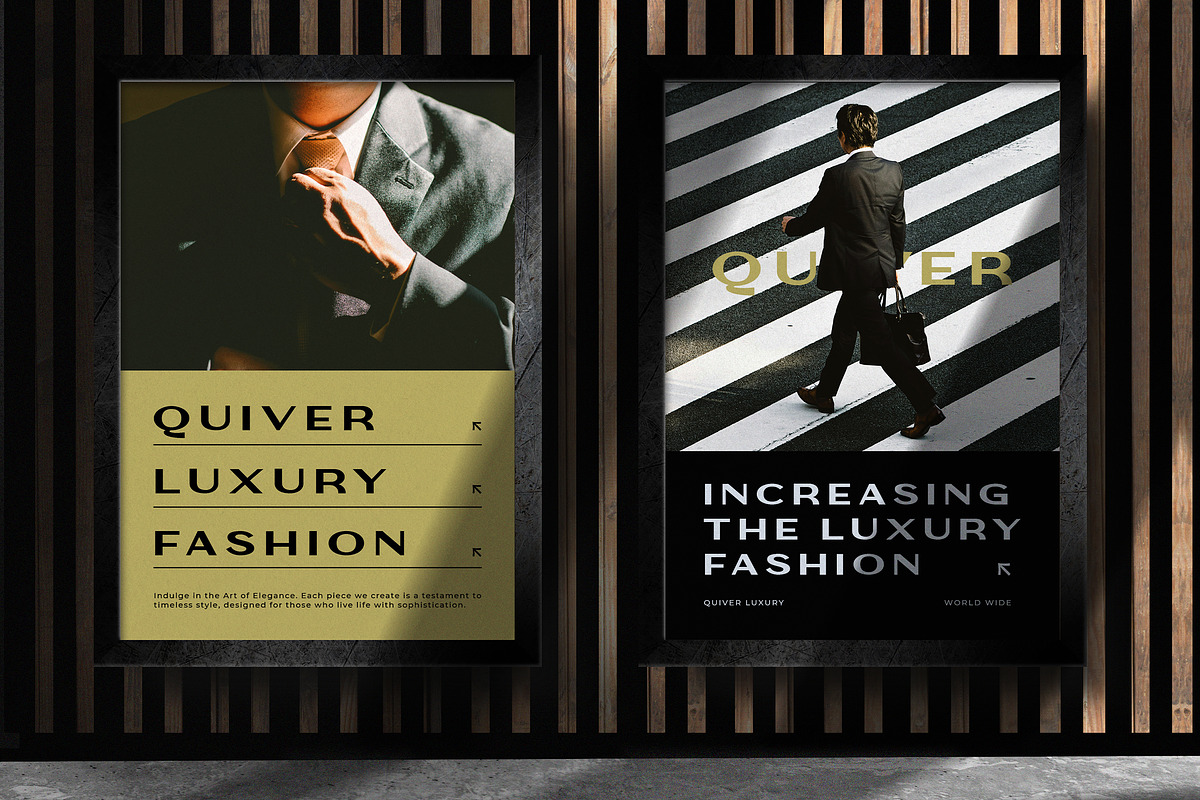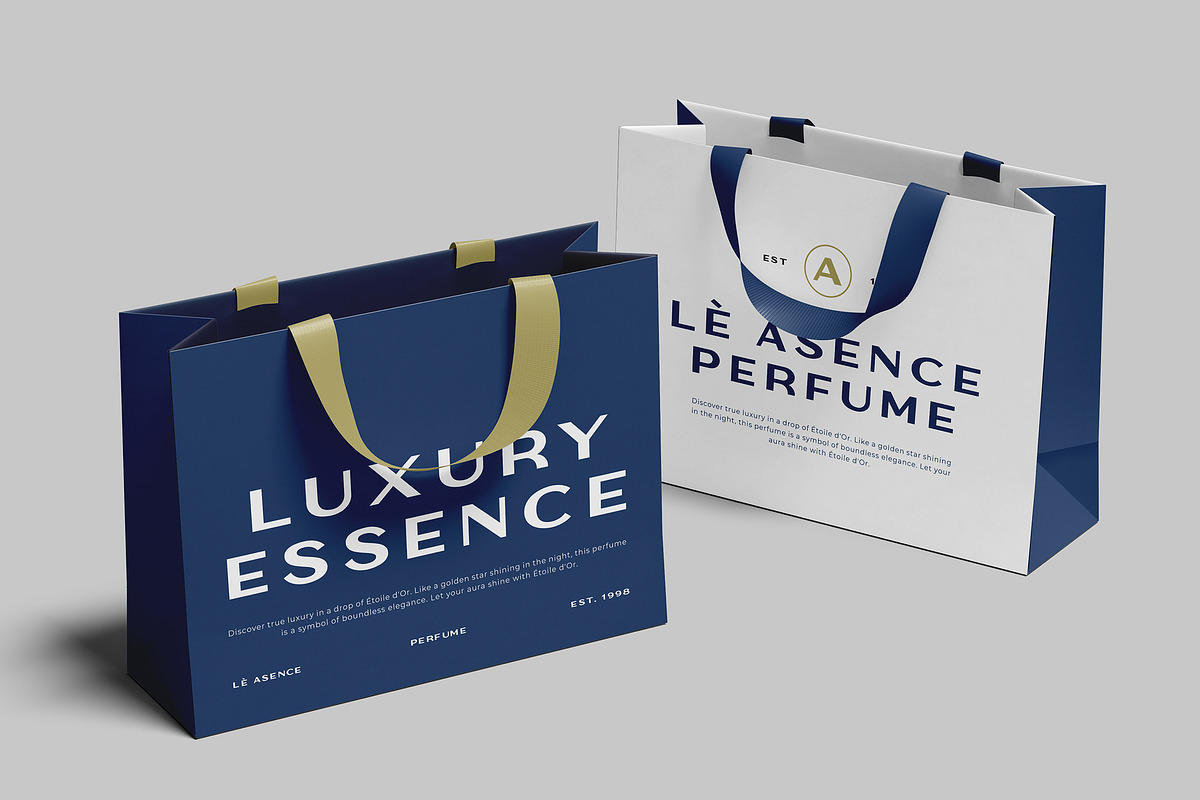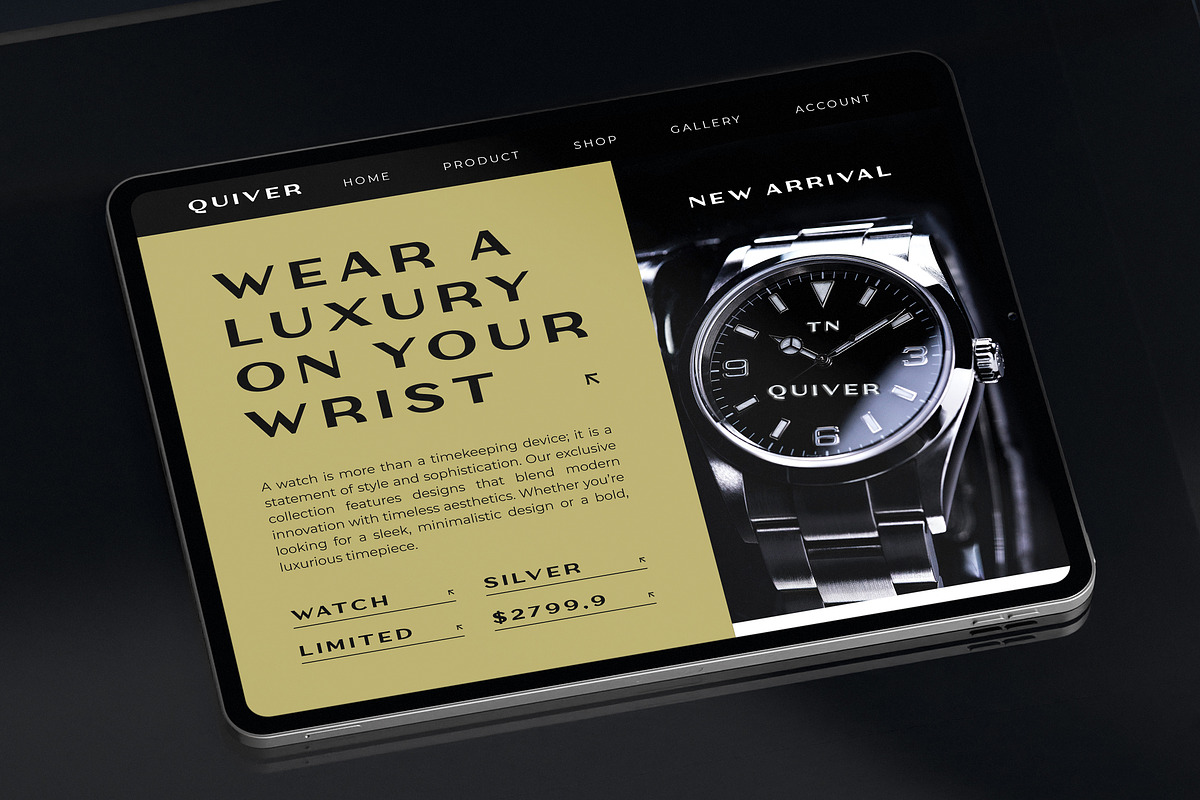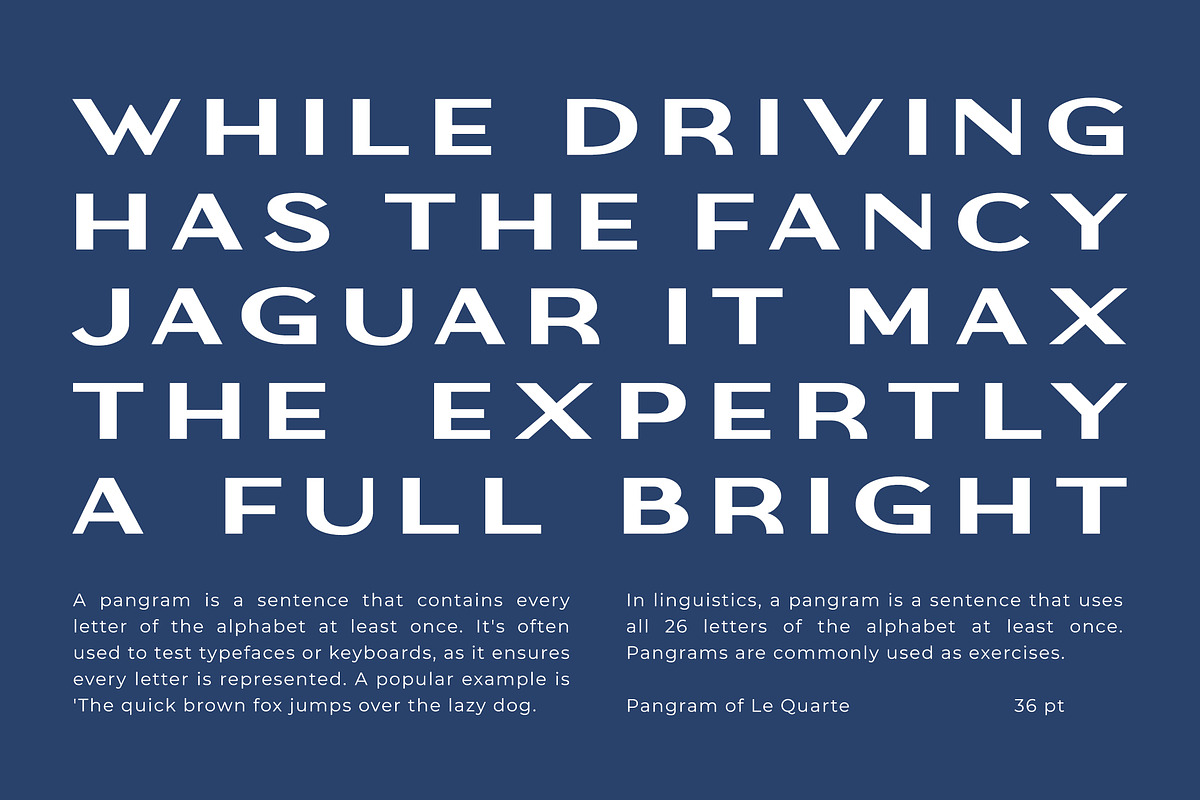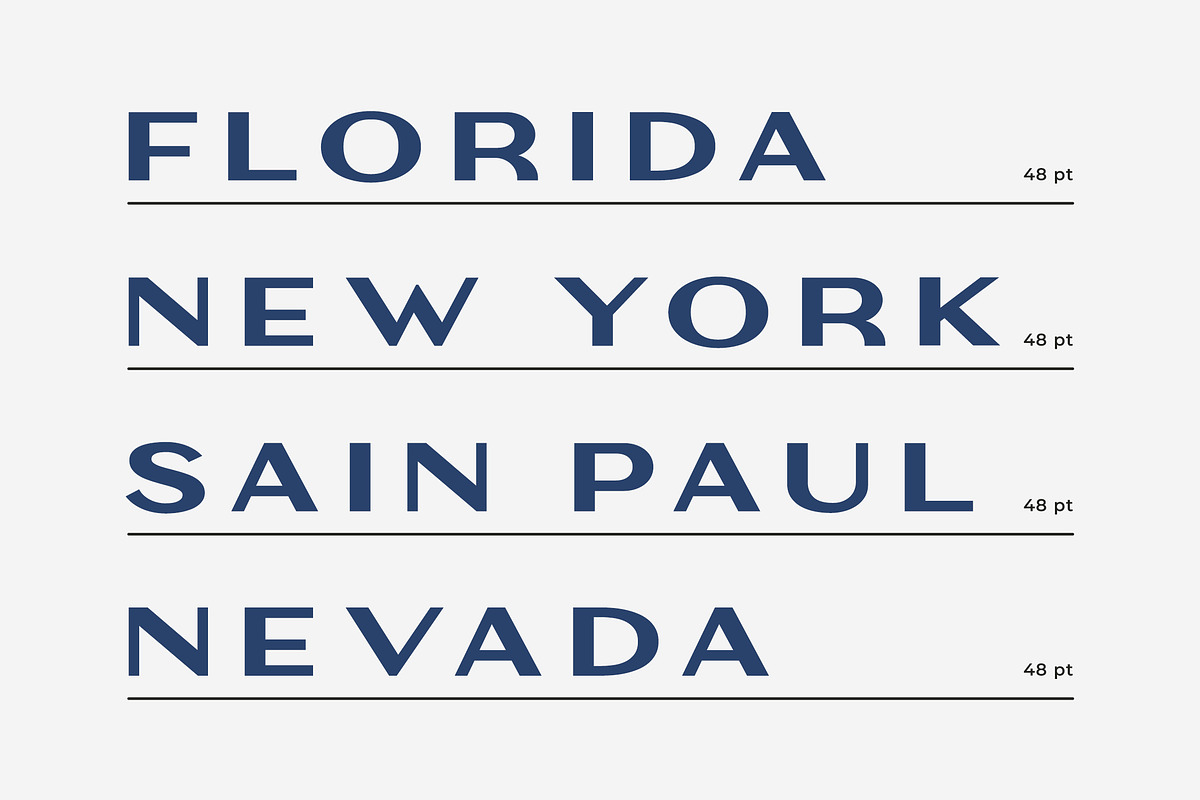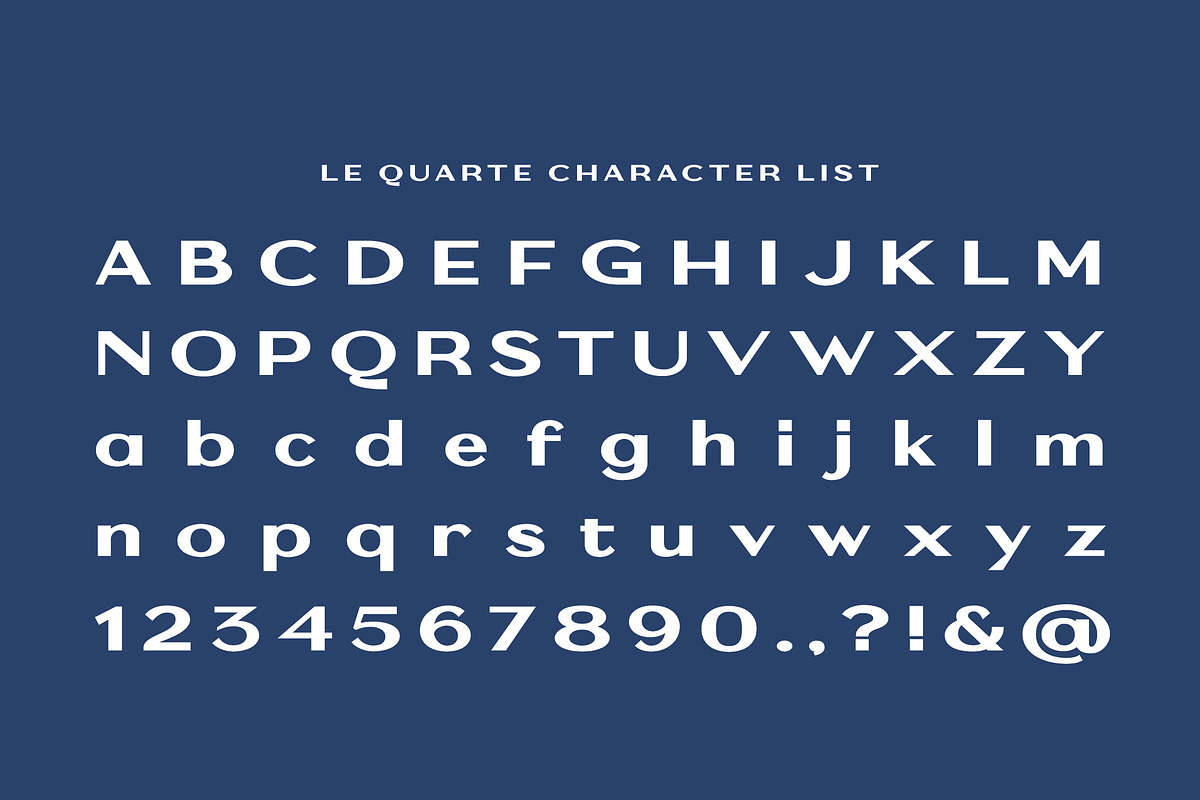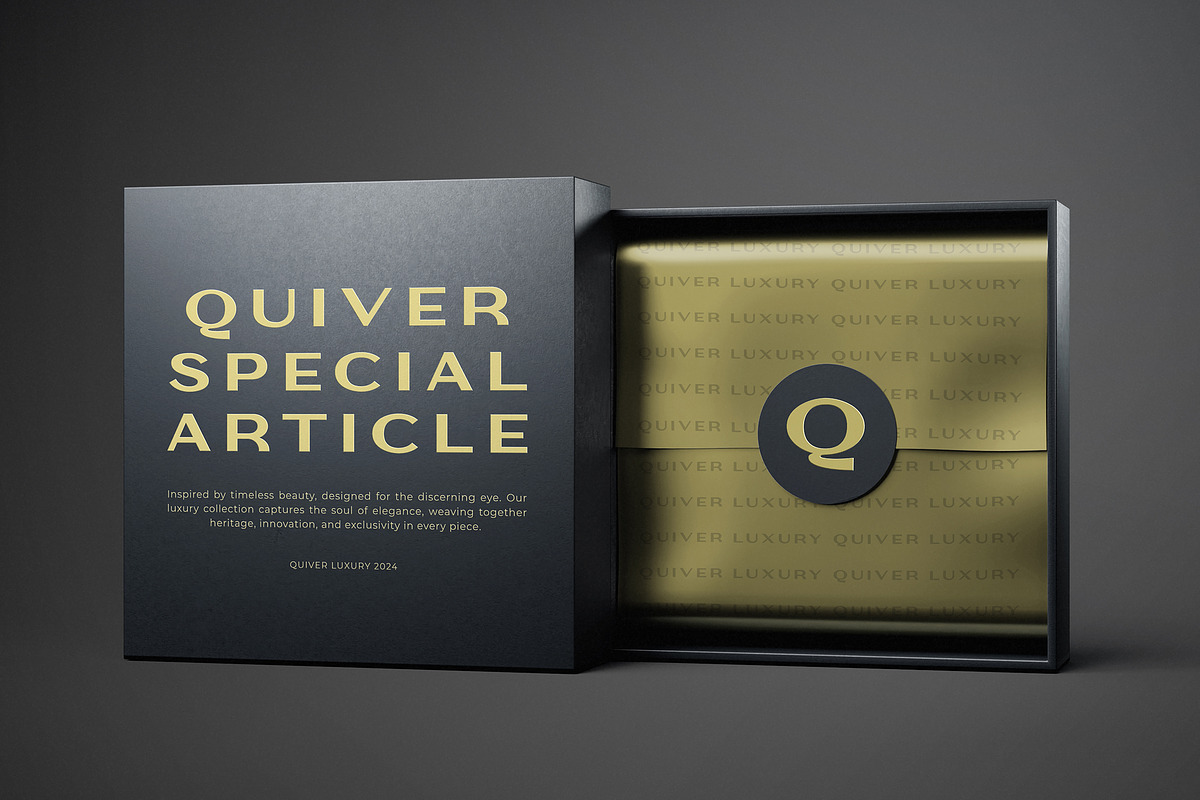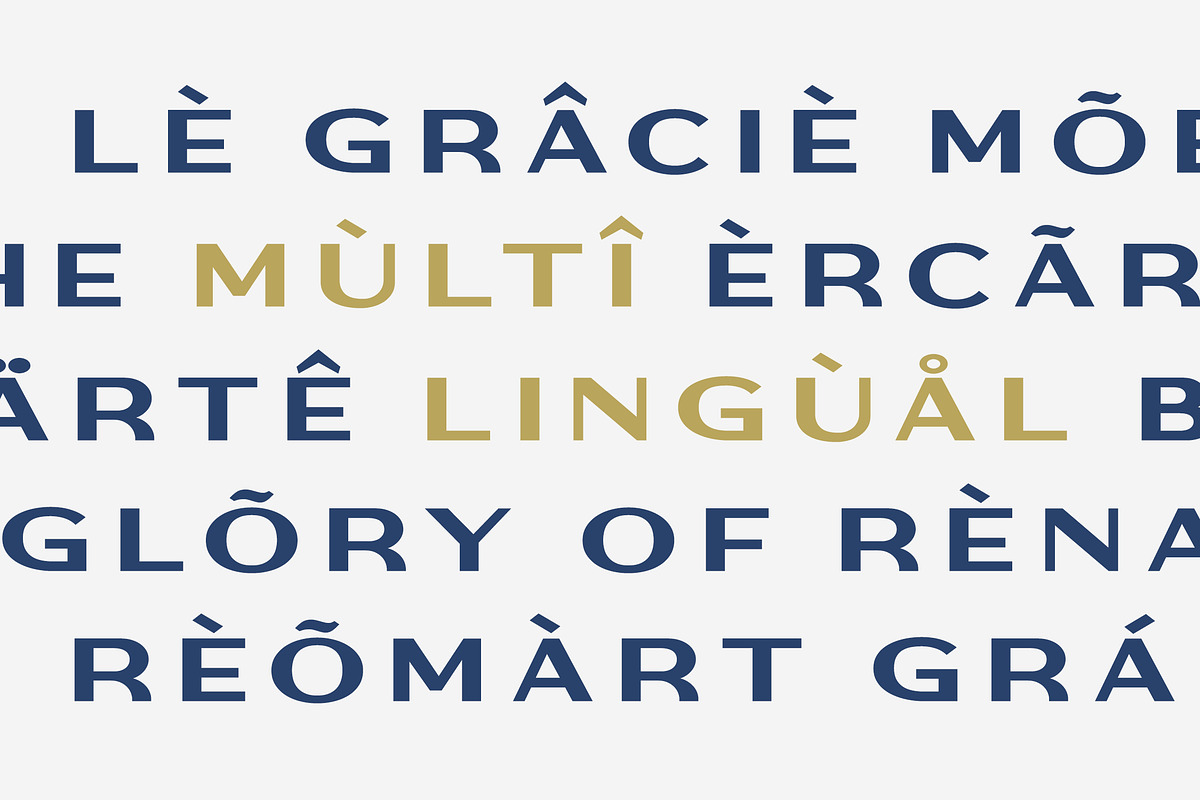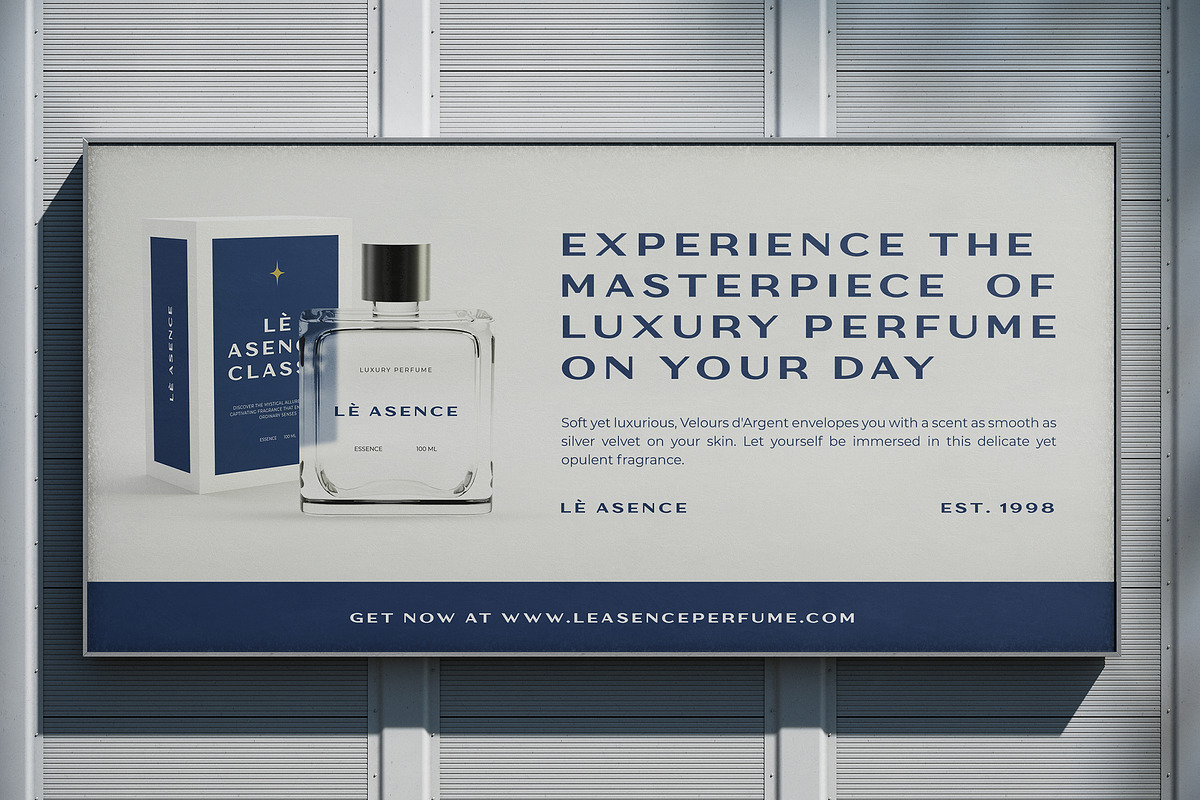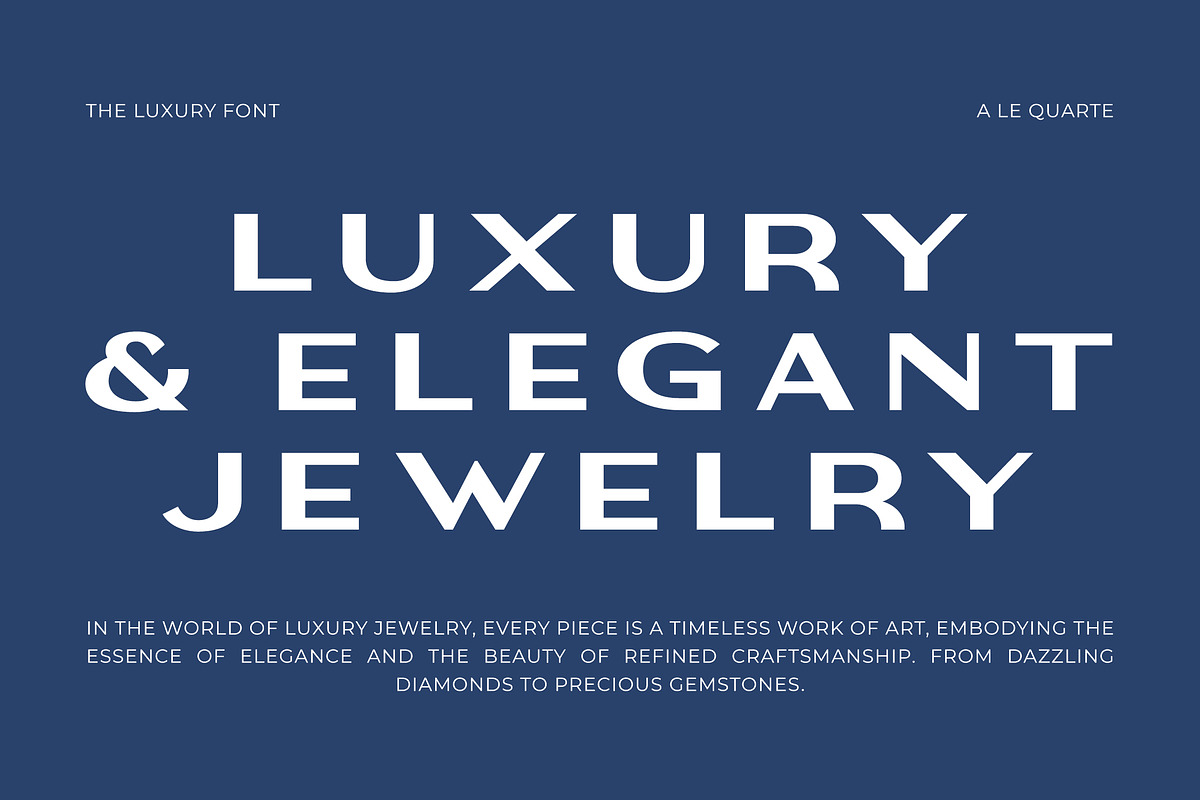
Le Quarte - Modern Luxury Sans Serif
Le Quarte - Modern Luxury Sans Serif Font - Elegance Fancy Classic Expanded Display Font.
Le Quarte is a Luxury Sans Serif Font that seamlessly blends modern with a classic edge. Its expanded letterforms exude confidence and grandeur, making it a statement font for fancy designs, it's perfect for branding, headlines, posters, packaging, editorial layouts, website design, luxury projects, advertising and any project that requires a modern luxury and elegance design. Comes with uppercase and lowercase characters, punctuation, numerals, ligatures, alternates, and multilingual support. These features make it adaptable for global projects while maintaining an exclusive look. Crafted by skilled typographers, Le Quarte embodies precision and artistry. Its luxurious and expanded design adds a touch of elegance, ensuring your designs are always premium and impactful.